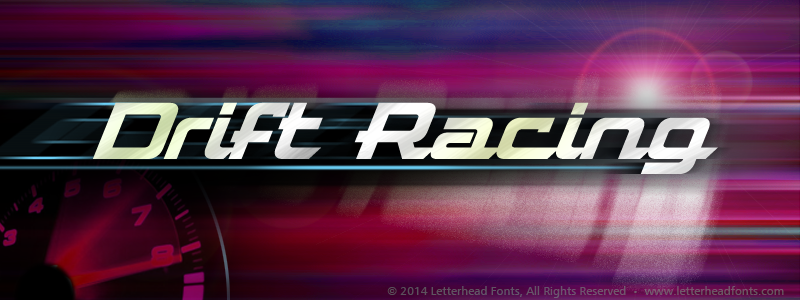
Racing typeface that's perfect for vehicle lettering, signs, and all things speedy. Set includes regular and slanted versions. Both come complete with convex insets perfect for adding depth to your designs. Each font contains 12 bonus stylistic ligatures & alternates. You might also like: Convecta & Quantum.